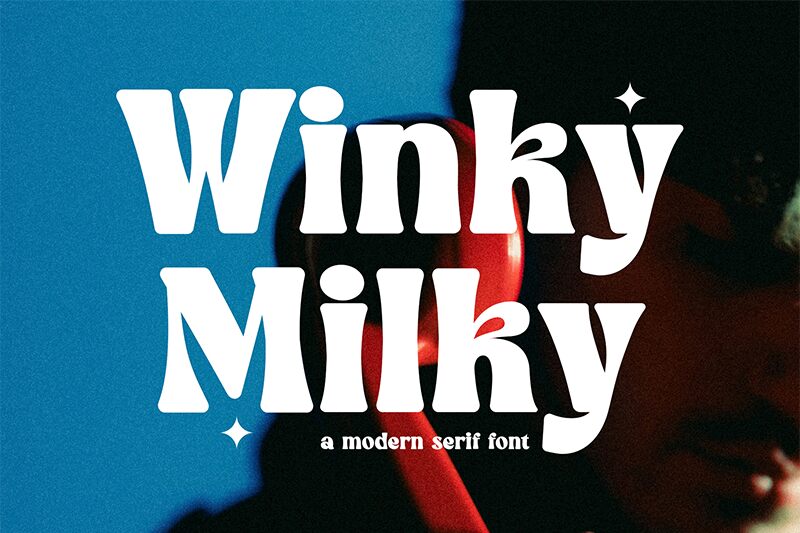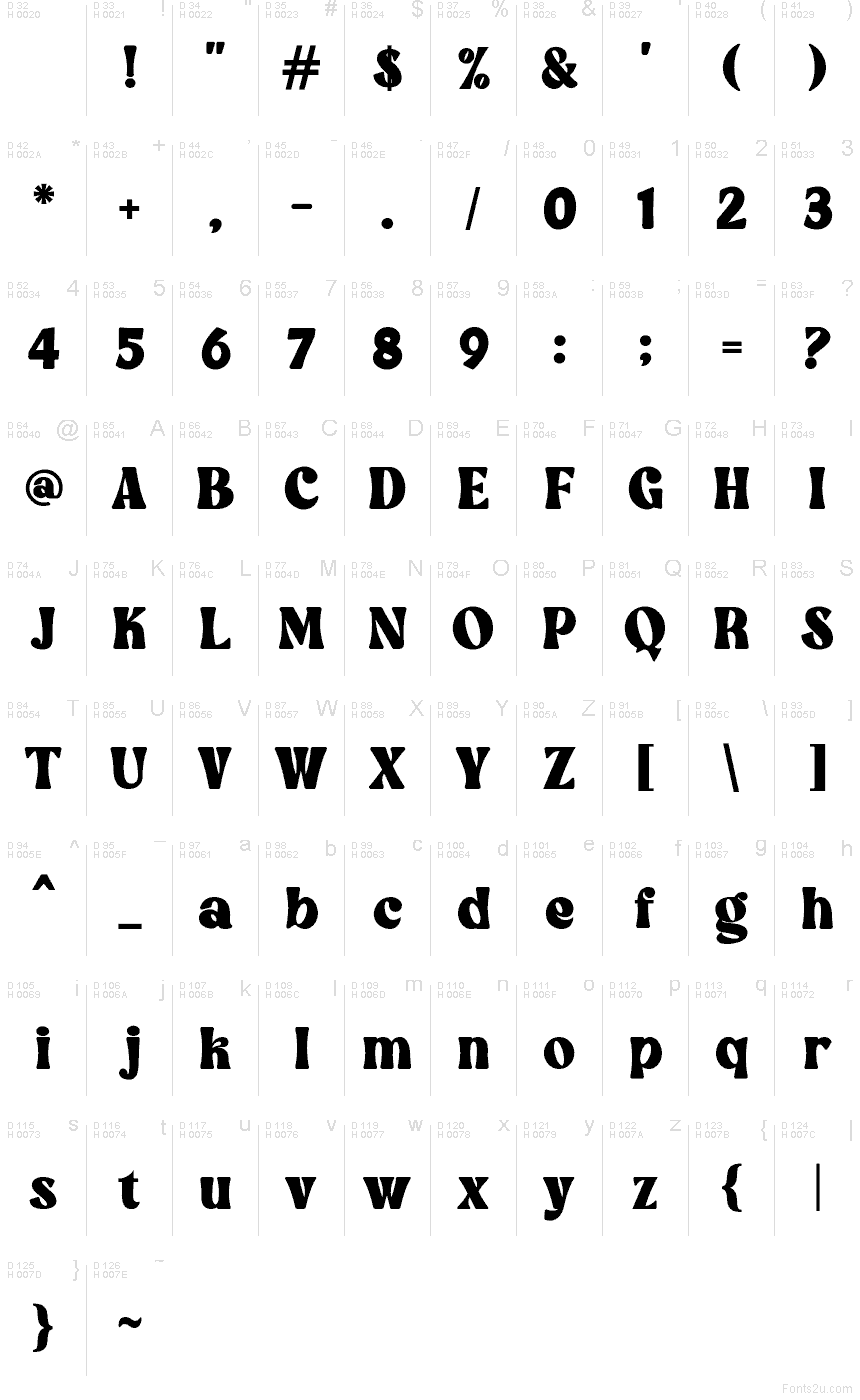
Winky Milky
Winky Milky font by Graphicxell is a free retro display typeface with a deliciously chunky, hand-cut feel. Its soft, swollen curves and slightly uneven contours look like they’ve been scooped, not drawn, giving headlines a creamy, nostalgic warmth. The bold black shapes fill space confidently without feeling rigid, so text feels friendly, bouncy, and just a bit mischievous.
Using Winky Milky, you can bring playful vintage character to ice cream branding, candy packaging, kids’ book covers, café menus, retro-themed posters, and social media graphics. This free font shines when set large, where the blobby silhouettes can really breathe. Pair it with a clean geometric sans for smaller text to keep your layouts readable while letting Winky Milky handle the fun.